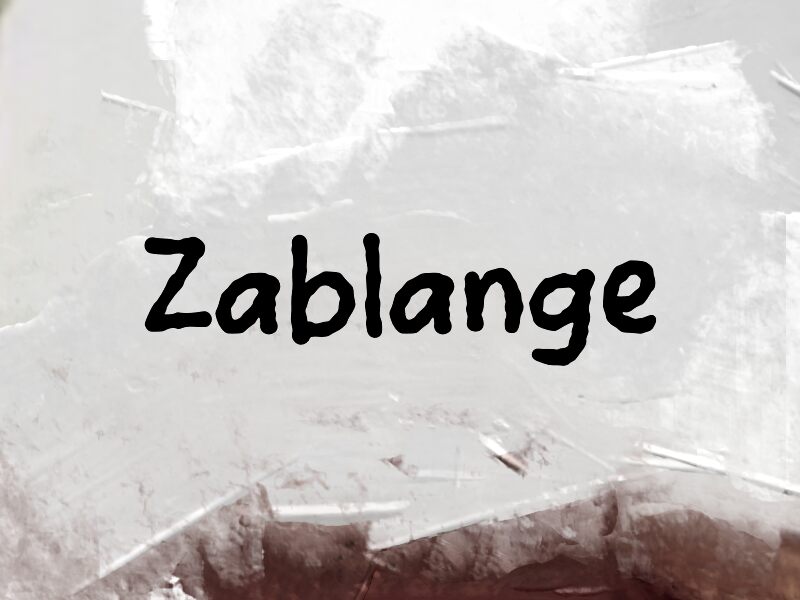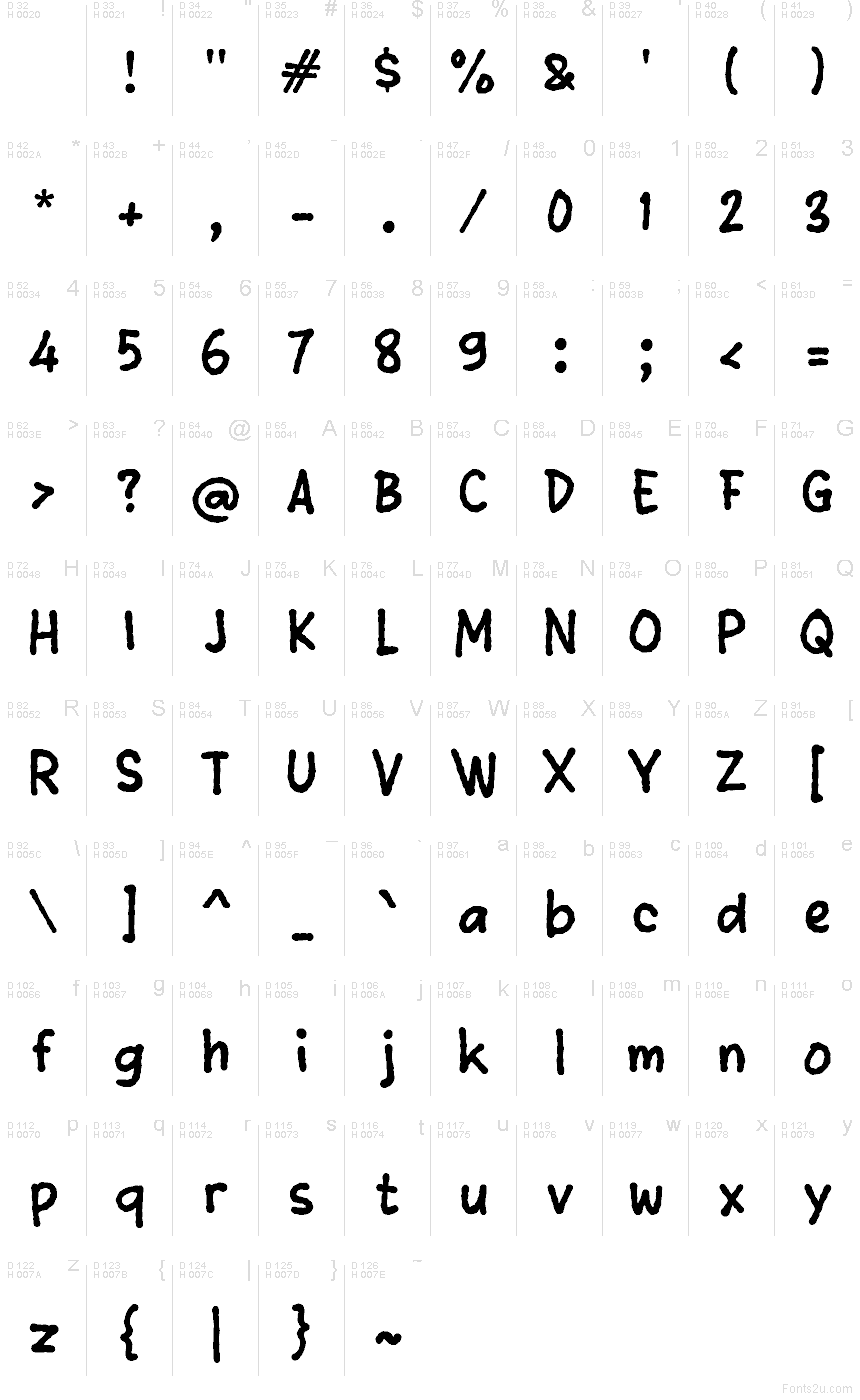
Zablange by Wep is a free brush font marked by swollen strokes, rounded ends, and a slightly wet, hand-painted texture. The lettering keeps a steady, informal rhythm, but the soft bumps and uneven edges stop it from feeling neat or signwriter-clean.
That loose painted surface makes sense on cafe menus, casual packaging, poster headlines, social media graphics, and handmade product labels. Short titles especially benefit from the broad brush shapes, which give words a friendly, homemade presence without turning into a novelty effect.
Zablange